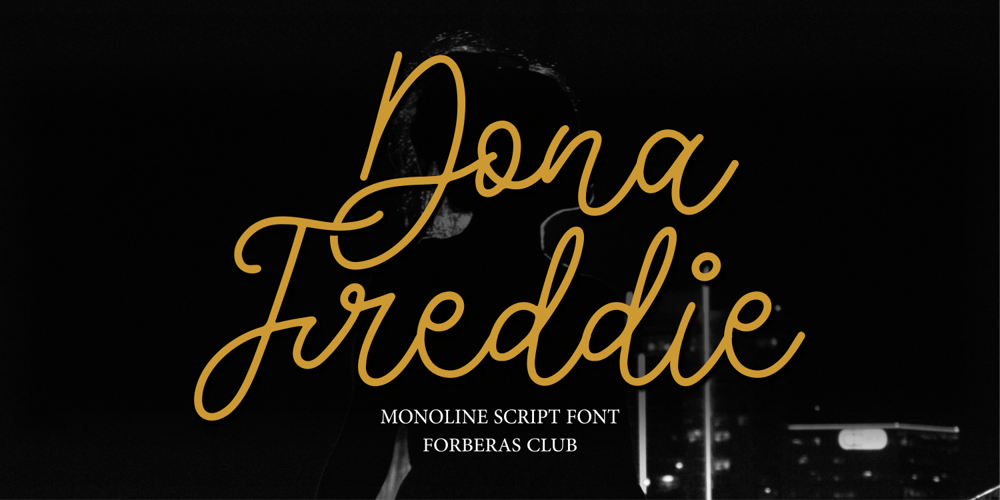
Dona Freddie
Dona Freddie font
Dona Freddie Font Family was designed by ANGGI HERMAWAN and published by Forberas Club. Dona Freddie contains 1 styles and family package options. Donna Freddie is handwritten style font. Monoline script style. Coolectible font for your special moment.